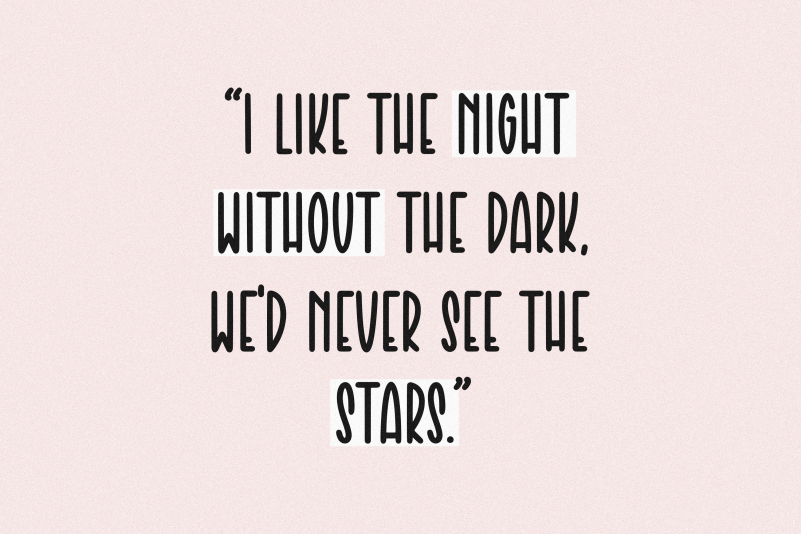
Grealish Font is a Tall Handwriting Font. Grealish is perfect for product packaging, branding project, megazine, social media, wedding, or just used to express words above the background.